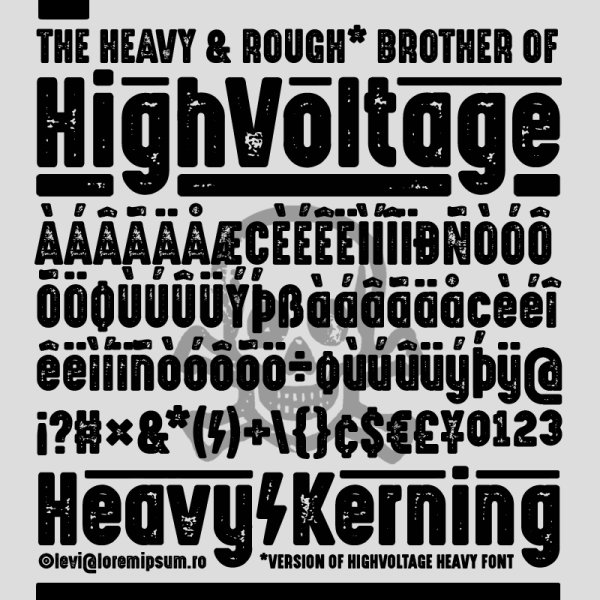
High Voltage Heavy Rough Font
High Voltage Heavy Rough Font, This font is perfect for stickers, retro projects, craft projects, shirts, svg designs, procreate designs, branding, blogs, logos, invitations and more!
The Heavy and Rough brother of HighVoltage Font, secondary option for HighVoltage Heavy.